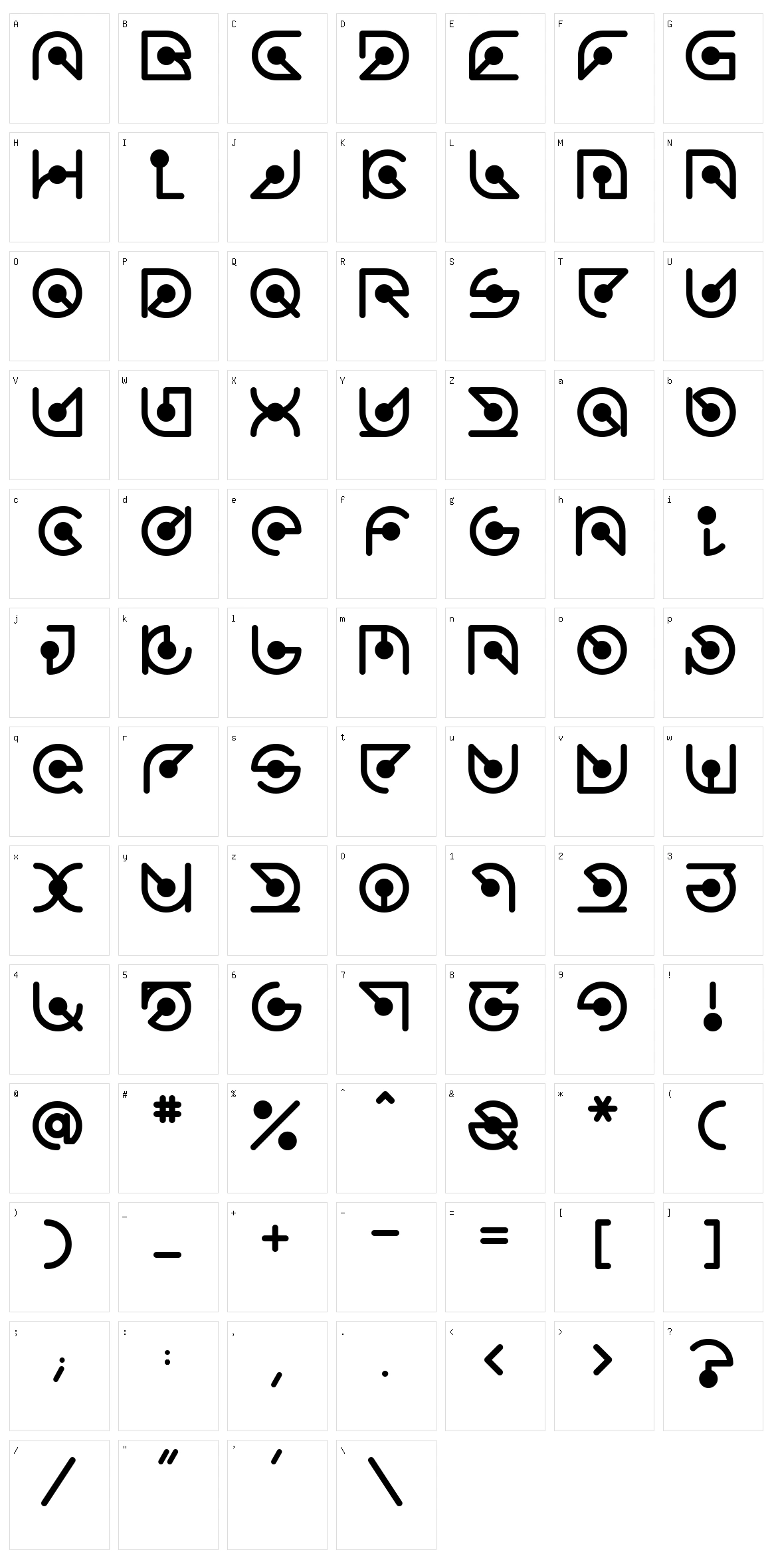
Atomic
Designed by: Sean Liew Kheng Huat
Atomic Regular (Re-release)
Background
Thank you for downloading this font. I can't remember how I came about doing this font, since the original version was created about 6 years ago. In this re-release, I've tuned up a lot of the kerning paris, to make it more usable. This font is suitable only for short headlines, or as background noise. Warning: using sparingly, lest running the risk of creating typography holocaust. You have been warned ;)
Only the basic set of characters are included, alphabets and numbers and limited symbols and punctuation.